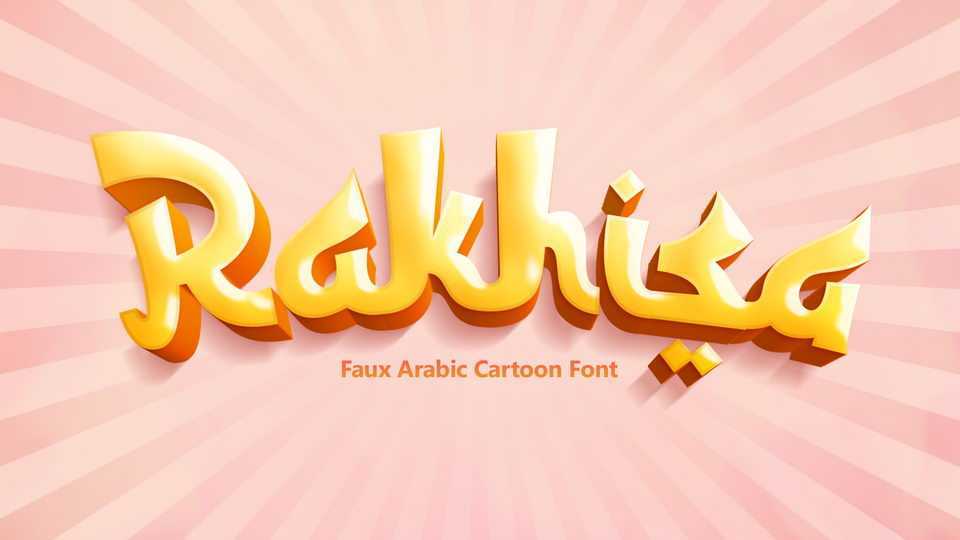
Download Rakhisa font, a display typeface that took the ethnic look of arabic symbol and then, adding some bold and cartoony shape in it. Rakhisa keeps its middle east vibe and also huge smile and joy in it.